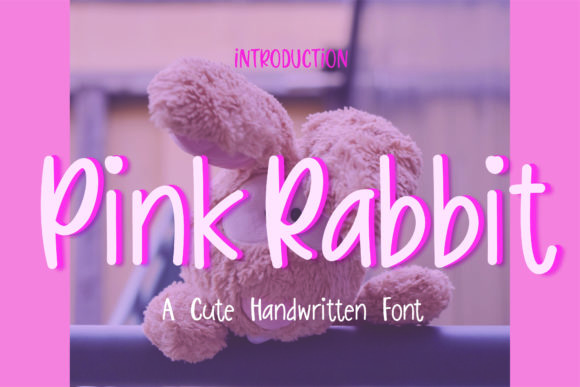
Embrace the Simplicity and Charm of Pink Rabbit Font: A Handcrafted Treasure for Your Artistic Expressions
In a world awash with digital monotony, the Pink Rabbit Font emerges as a refreshing oasis of creativity, inviting you to escape the banal and embrace the extraordinary. This enchanting script font, lovingly crafted by GoodMoodType, embodies the essence of handwritten elegance, transporting you to a realm where artistry and authenticity reign supreme.
With its playful, lighthearted curves and genuine charm, Pink Rabbit Font breathes life into your digital creations, adding a touch of whimsy and personality that captivates and engages. Its simple yet captivating aesthetic makes it the perfect choice for chalkboard quotes, teaching materials, and any project that demands a personal and authentic feel.
As you immerse yourself in the world of Pink Rabbit Font, you'll discover a treasure trove of possibilities. Whether you're a seasoned designer seeking to elevate your work with a unique touch or a creative enthusiast seeking a font that resonates with your individuality, Pink Rabbit Font awaits your exploration.
Unleash Your Creative Spirit with Pink Rabbit Font:
Express Your Unique Style:
Inject your digital creations with a touch of your personality through the distinctive charm of Pink Rabbit Font. Its handwritten style adds a layer of authenticity that sets your work apart, making it truly memorable.
Capture the Essence of Chalkboard Charm:
Create chalkboard quotes that ooze rustic charm and evoke a sense of nostalgia with Pink Rabbit Font. Its playful curves and organic texture will transport you back to the days of childhood innocence and the joy of learning.
Ignite Your Imagination with Teaching Materials:
Engage your students with captivating teaching materials that come alive with the magic of Pink Rabbit Font. Its clear and legible characters ensure that your lessons are easy to read and understand, while its playful spirit adds a spark of excitement to the learning process.
Experience the Joy of Handcrafted Beauty:
Indulge in the beauty of handcrafted artistry with Pink Rabbit Font. Its attention to detail and meticulously crafted characters reflect the passion and dedication of its creator, GoodMoodType. Each letter dances across the screen with a grace and elegance that is sure to captivate your audience.
Embrace the Power of Simplicity:
In a world often cluttered with visual noise, Pink Rabbit Font offers a refreshing respite. Its minimalist design allows your message to shine through, ensuring that your creations leave a lasting impression without overwhelming your audience.